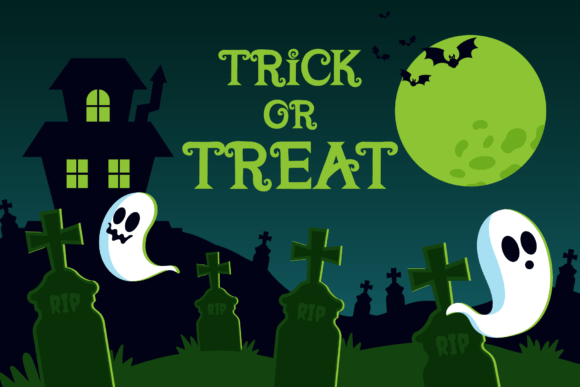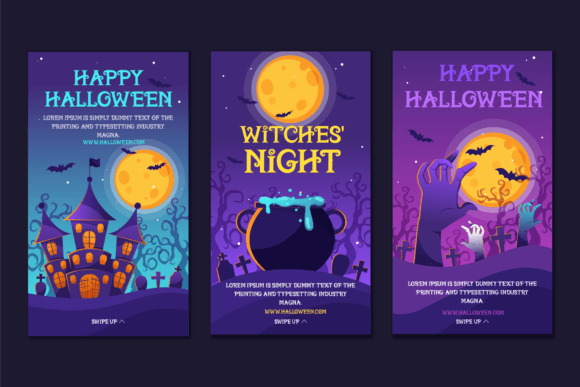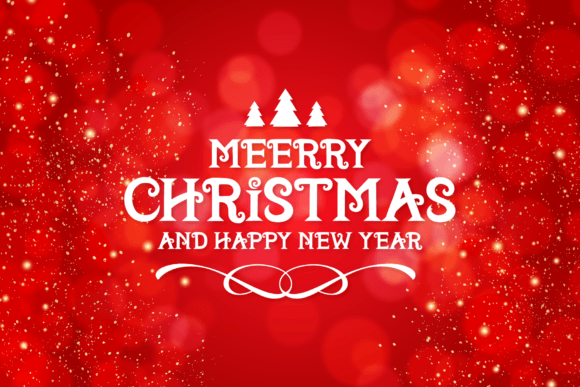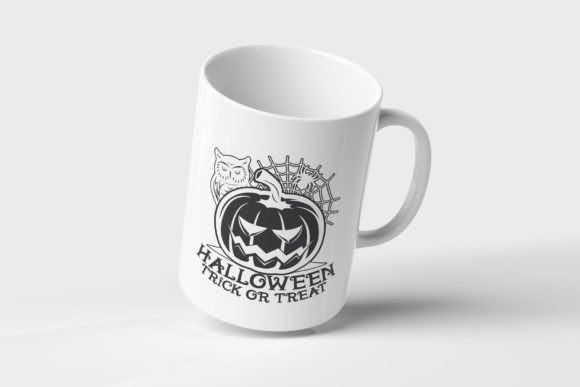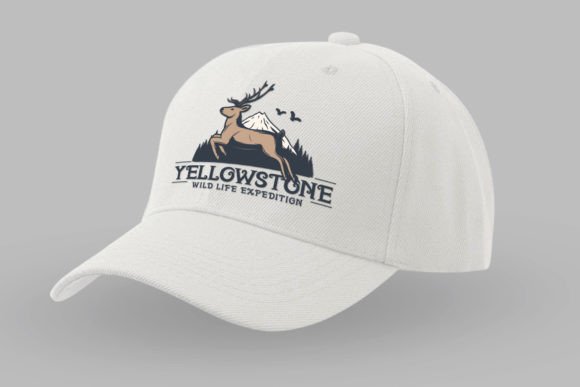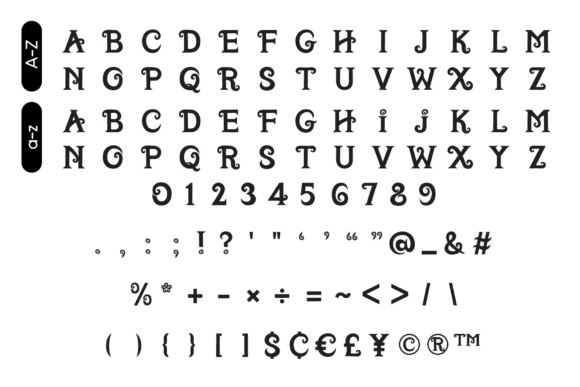
Igniting Creativity with the Perfect Font
As a designer, you’ve likely found yourself staring at a blank canvas, wondering what font will bring your next project to life. It’s a moment we’ve all been there – the blank page, the blank mind, and the endless possibilities. But what if I told you that the perfect font is just a click away? Enter Fox Candle Font, a vintage and cool slab serif font that’s sure to set your designs ablaze.
This versatile font is perfect for a variety of themes, from spooky Halloween nights to cozy Christmas mornings, and even romantic Valentine’s Day treats. Its unique blend of vintage charm and modern flair makes it an ideal choice for logos, t-shirts, papers, print designs, and so much more. Whether you’re a seasoned designer or just starting out, Fox Candle Font is a valuable addition to your toolkit, offering endless creative possibilities and a touch of magic to your designs.
Fox Candle Font Key Features
- Character Set: The font includes a comprehensive character set, covering Latin, Cyrillic, and Greek alphabets, as well as various punctuation marks and symbols.
- Unique Characteristics: Fox Candle Font features a unique blend of modern and vintage elements, with intricate details and ornaments that evoke a sense of elegance and sophistication.
Designer Review: Fox Candle Font
Overall, I think Fox Candle Font has some great qualities, but it also falls short in a few areas. ✨ Let’s start with the good stuff.
- ✨ The font is highly customizable, with many options for font weights, sizes, and line heights.
- ✨ The font is available in both serif and sans-serif styles, making it versatile for a wide range of design applications.
- ✨ The font has a unique, hand-drawn feel that adds a touch of personality to any design.
However, there are also some limitations to consider. ⚠️
- ⚠️ The font can be quite busy, with many flourishes and ornaments that may not be suitable for all designs.
- ⚠️ The font may not be the best choice for large blocks of text, as it can be difficult to read at larger sizes.
Overall, I think Fox Candle Font is a great choice for designers who want to add a touch of personality to their designs. However, it may not be the best choice for every project. With a little creativity and experimentation, this font can be a real showstopper.
The Fox Candle Font is a great choice for designs that need a unique and elegant touch. Some common use cases include:
1. Wedding invitations and stationery.
2. Luxury branding and marketing materials.
3. Fine art and photography projects.
4. Any design that needs a touch of sophistication and elegance.
Alternatives to Fox Candle Font
Pacifico is a beautiful, elegant script font ideal for creating a warm and inviting atmosphere in branding, packaging, and advertising materials. It is perfect for designs that require a touch of sophistication and romance. Pacifico is a more elegant and refined alternative to Fox Candle Font, making it suitable for high-end designs.
Great Vibes is a modern, handwritten font that exudes a sense of playfulness and fun. It is ideal for creating eye-catching headlines and titles in social media graphics, blog posts, and other digital content. Compared to Fox Candle Font, Great Vibes is more casual and energetic, making it suitable for younger audiences and designs that require a relaxed tone.